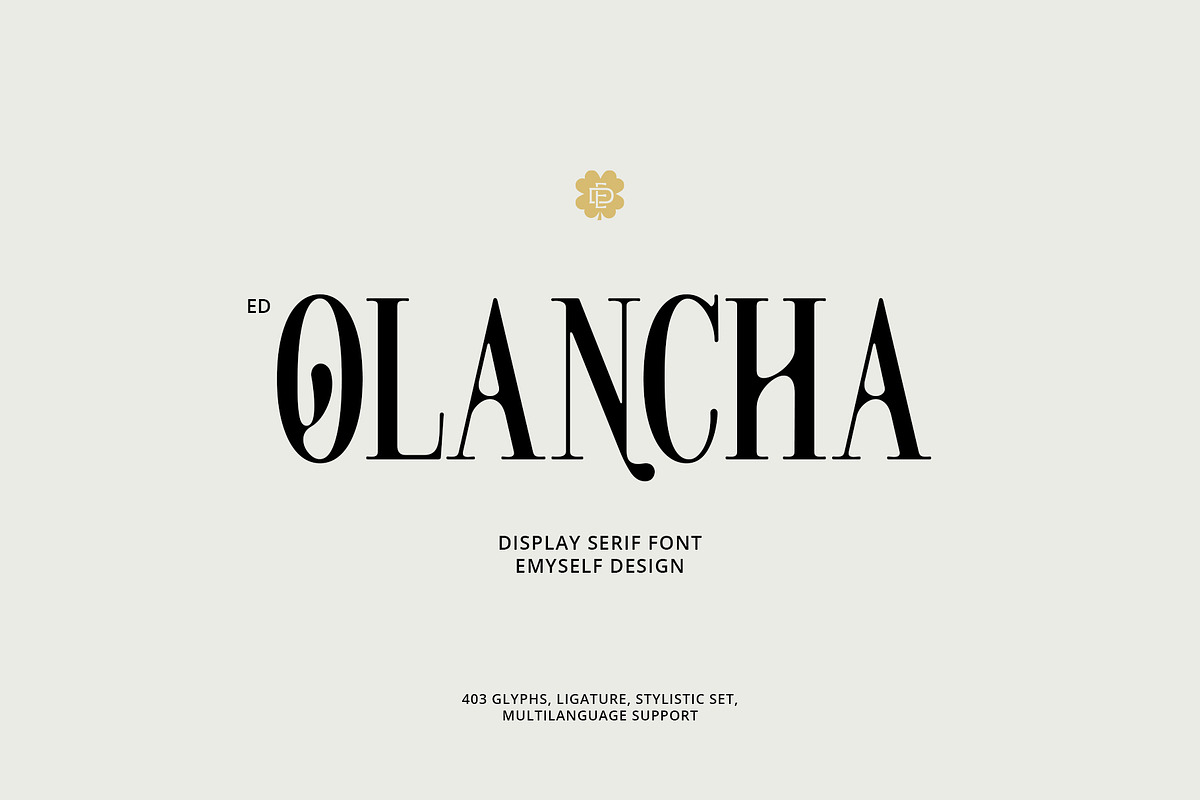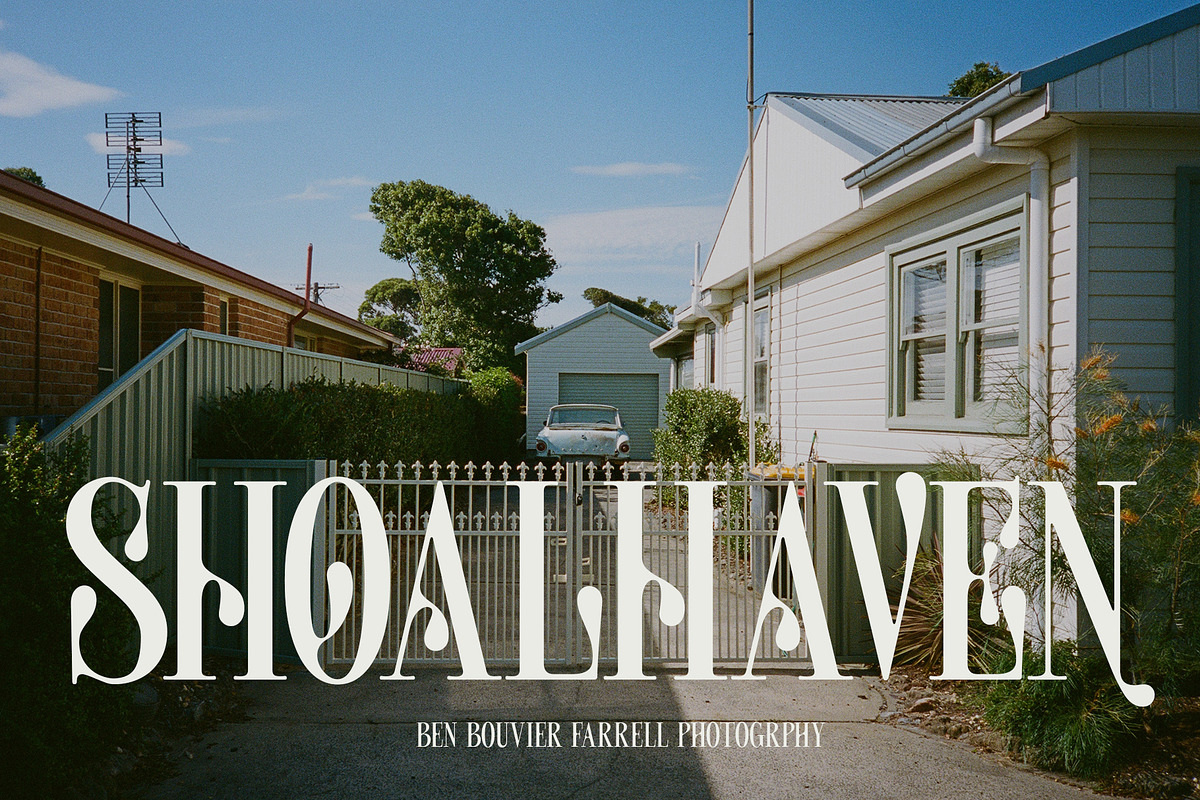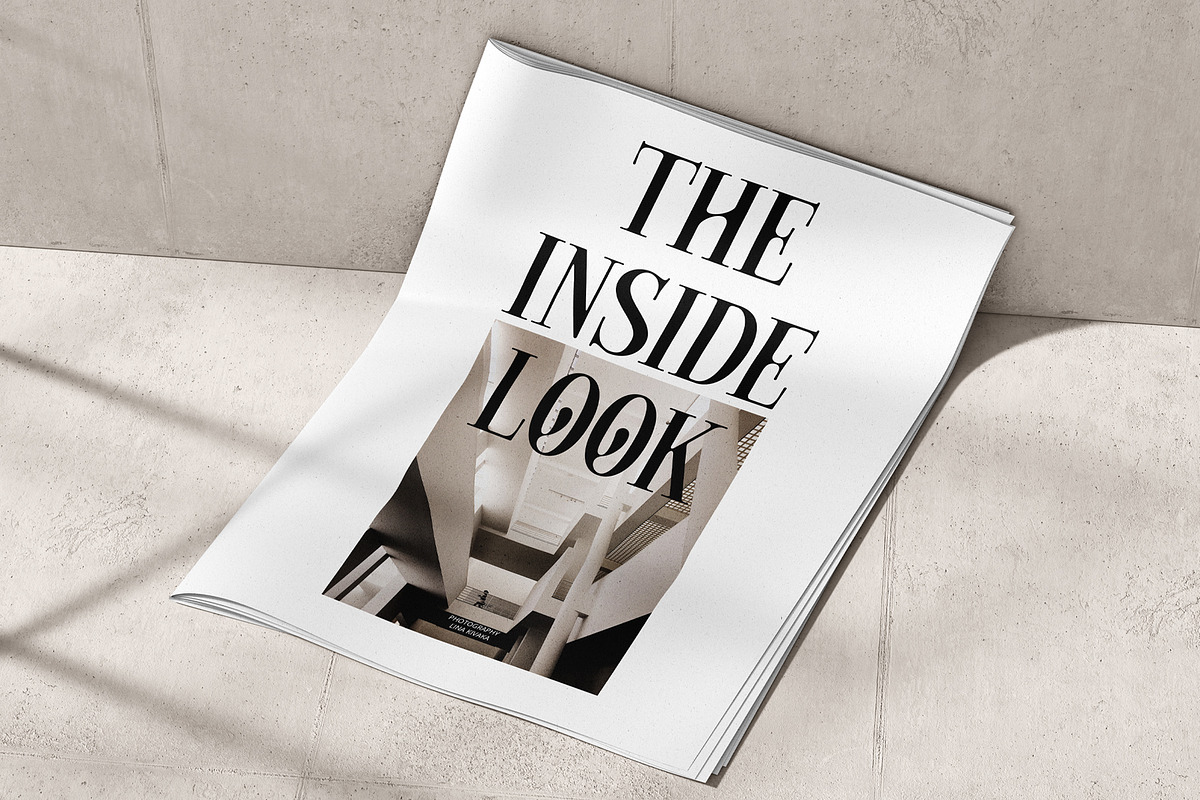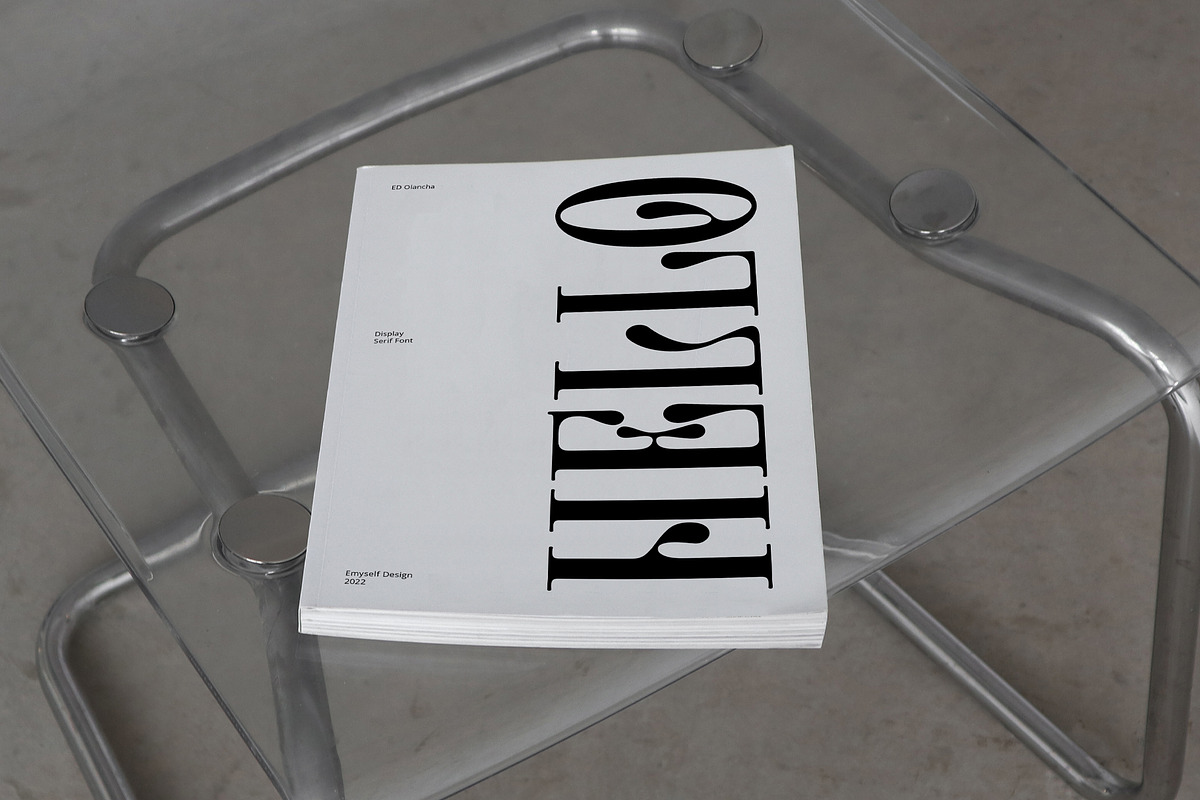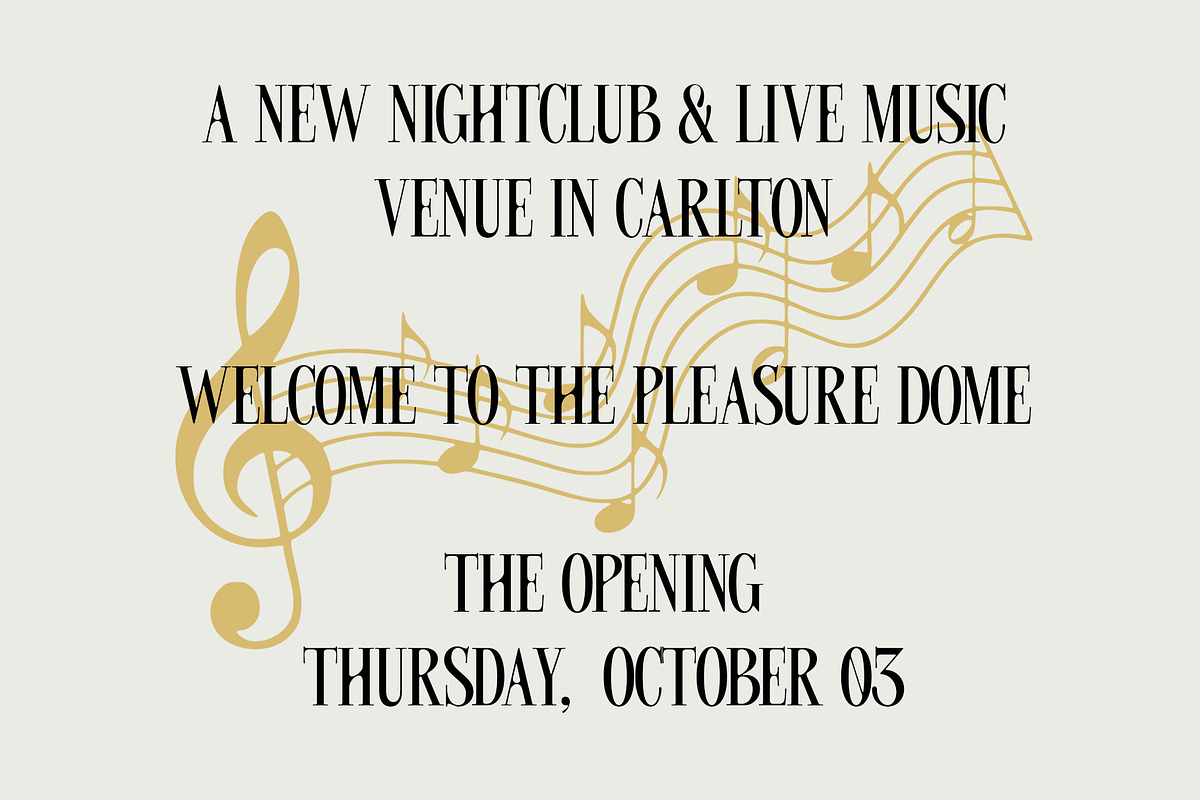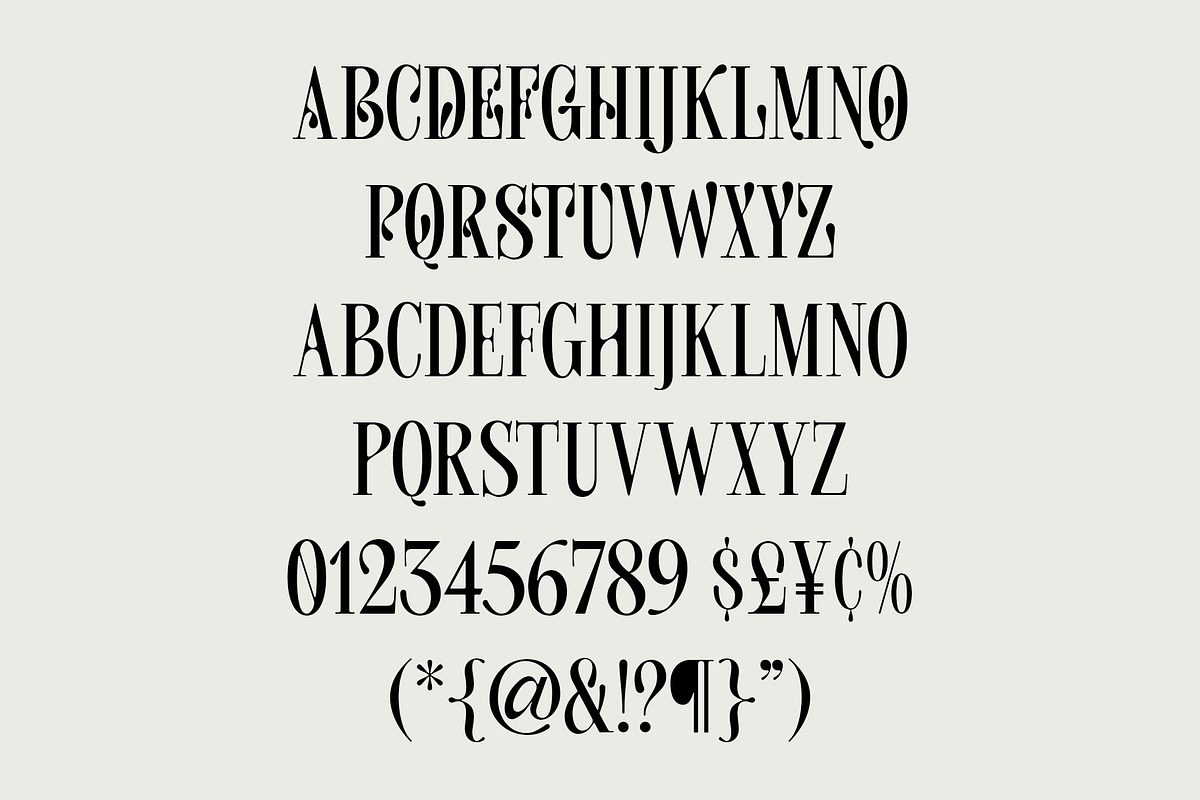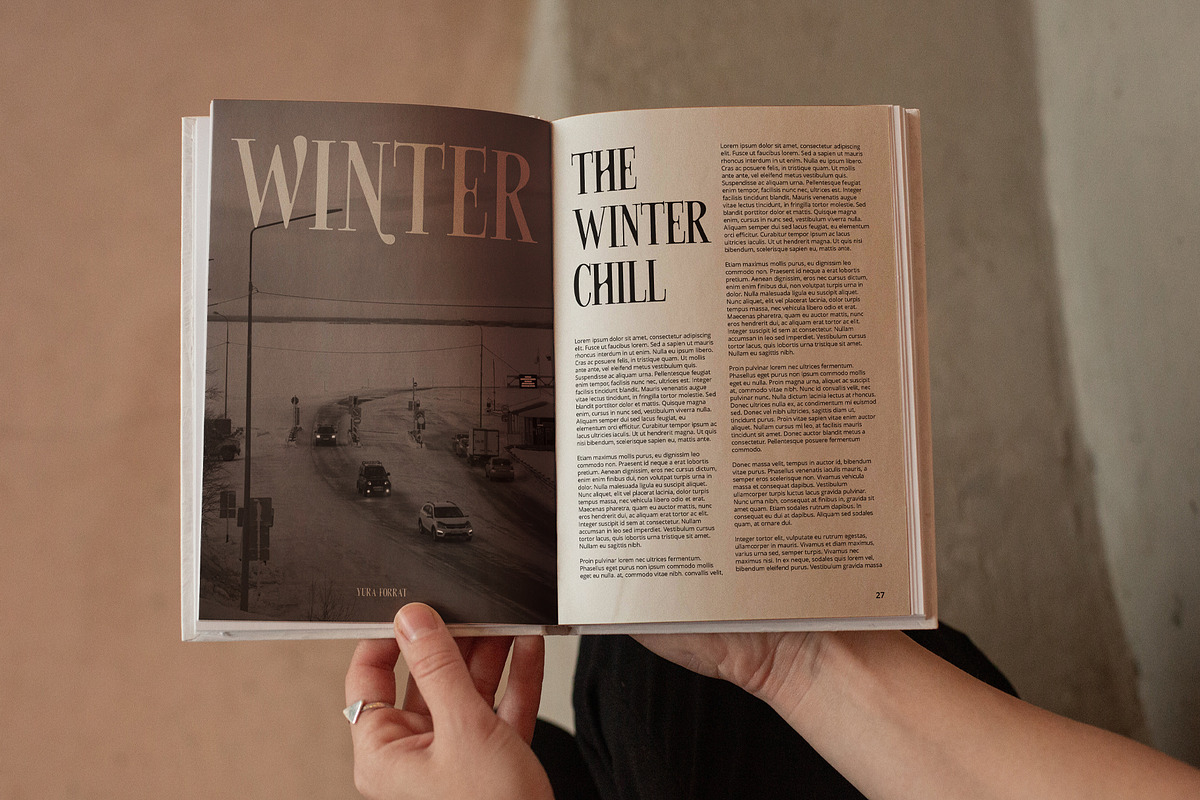
ED Olancha - Display Serif
Olancha is a display serif font with a unique rounded style. olancaha's style is inspired by the previous font " Promise " and the shape of the waterdrops that can be seen from the end and look of this font.
This font consists of uppercase letters, the characters A-Z are serif letters with a rounded appearance and a-z are standard serif letters. Olancha is also equipped with features such as Ligature, Stylistic set, and multi language support.
- Total Glyph : 403
- Punctuation and Marks
- Stylistic set & Ligatures